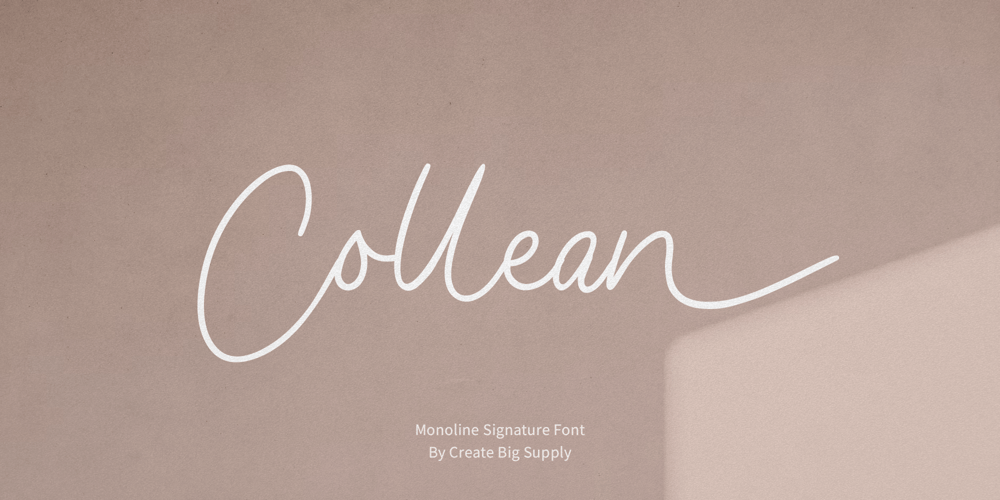
Collean
Collean font
Collean Font Family was designed by Irpan Maulana and published by Create Big Supply. Collean contains 1 styles and family package options. Collean is a handwritten, monoline-style Signature typeface. Be mesmerized by its beautiful style and use it to create beautiful wedding invitations, beautiful stationary art, eye-catching social media posts and more! This font is PUA encoded which means you can access all the amazing glyphs and ligatures easily Features: Uppercase & lowercase Numbers and punctuation Multilingual Ligatures Alternate PUA Encoding Full Character Set!”#$%&'()*+,-./0123456789:;<=>?@ABCDEFGHIJKLMNOPQRSTUVWXYZ[]^_`abcdefghijklmnopqrstuvwxyz{|}~¡¢£¤¥§¨©ª«®¯°±²³´¹º»¿ÀÂÃÄÅÆÇÈÉÊËÌÍÎÏÑÒÓÔÕÖרÙÛÜÝÞßàáâãäåæçèéêëìíîïñòóôõö÷øùúûüýþÿ•†‹›‒–ˆˇ˜€“‘ŸœŒš˚”’ıžŠ